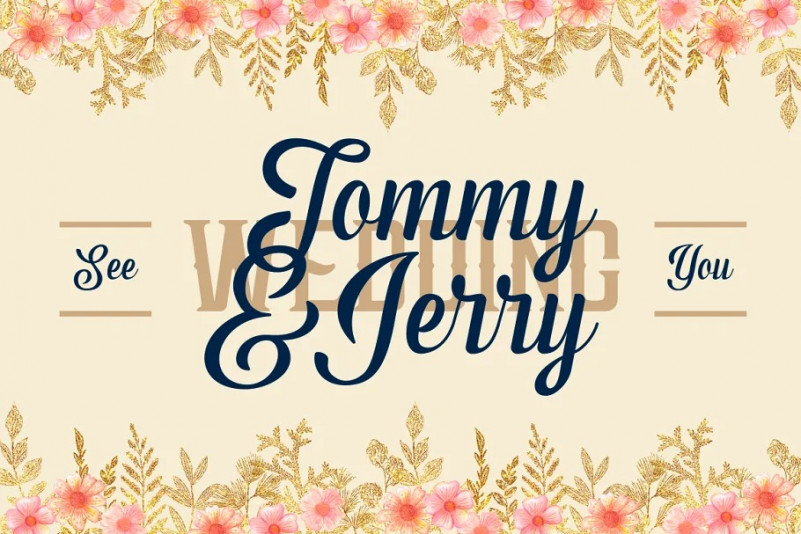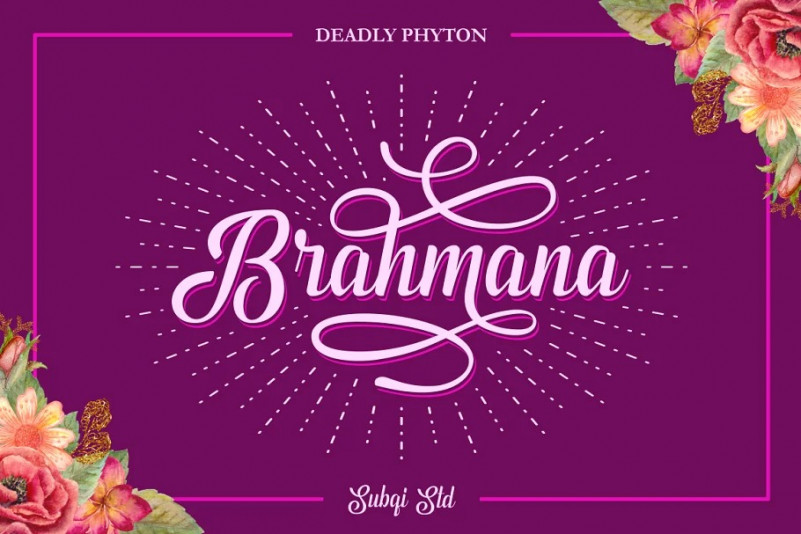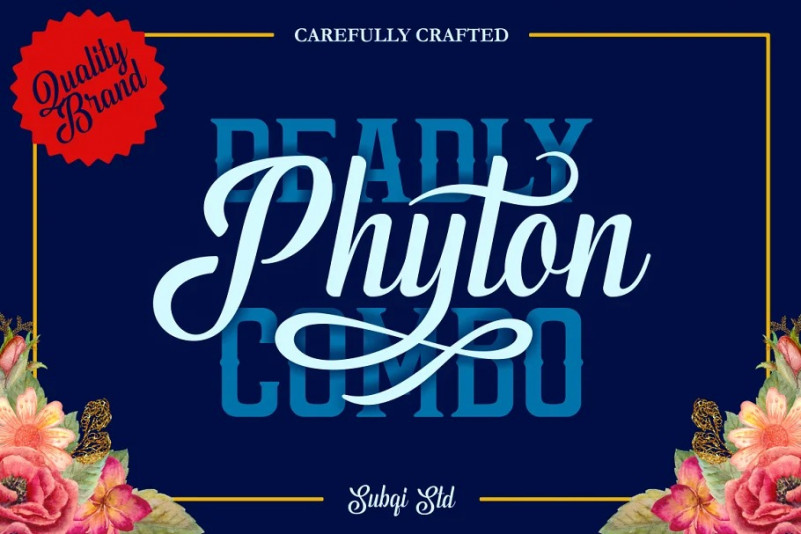
Phyton Font
Proudly Present our new product. Deadly Phyton COMBO ! A perfect combination between calligraphy script and serif. Work well on both vintage and modern design as you can see at our preview images sample.